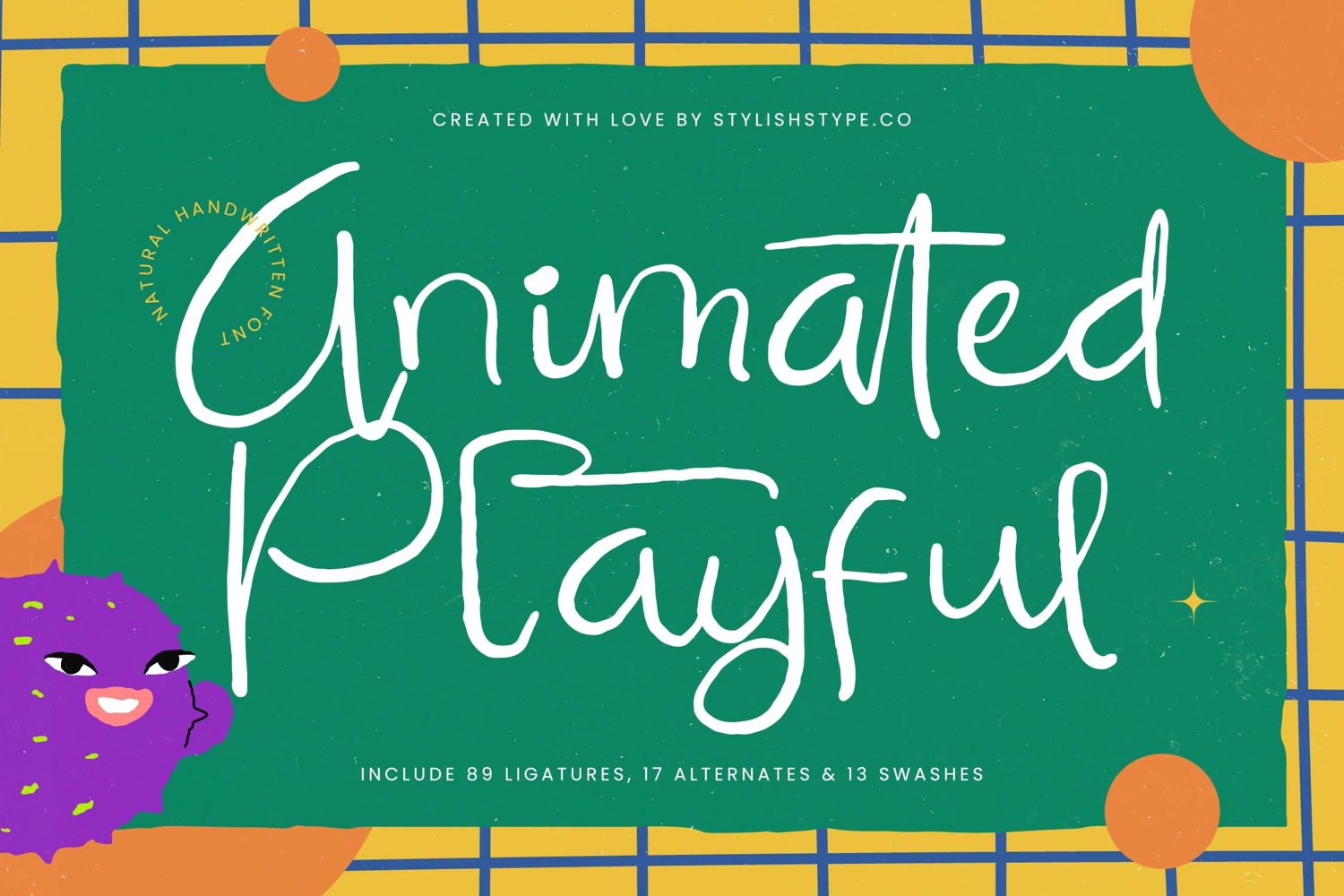
Animated Playful - Natural Handwritten Font
Discover the captivating charm of Font Animated Playful - Natural Handwritten Font Script, a typeface designed to infuse your projects with immediate warmth and genuine personality. This delightful script font embodies a sense of organic movement and artistic spontaneity, mimicking the authentic nuances of natural handwriting. Its lively strokes and friendly character forms create an inviting visual experience, perfect for conveying joy and approachability in any design.
Elevate your designs with the incredible customization potential of Font Animated Playful - Natural Handwritten Font Script. Beyond its inherent charm, this font offers a rich array of 89 ligatures, 17 alternates, and 13 swashes, empowering designers to craft truly unique and expressive typography. These extensive stylistic sets ensure that every word feels distinctive and hand-crafted, preventing repetition and enhancing its natural appeal.
Expand your creative reach effortlessly with the global adaptability of this exceptional typeface. With its extensive multilingual support, Font Animated Playful - Natural Handwritten Font Script adapts seamlessly across global markets, making it incredibly versatile for international projects. This robust capability ensures your message resonates with diverse audiences, maintaining its playful essence and professional integrity regardless of language.